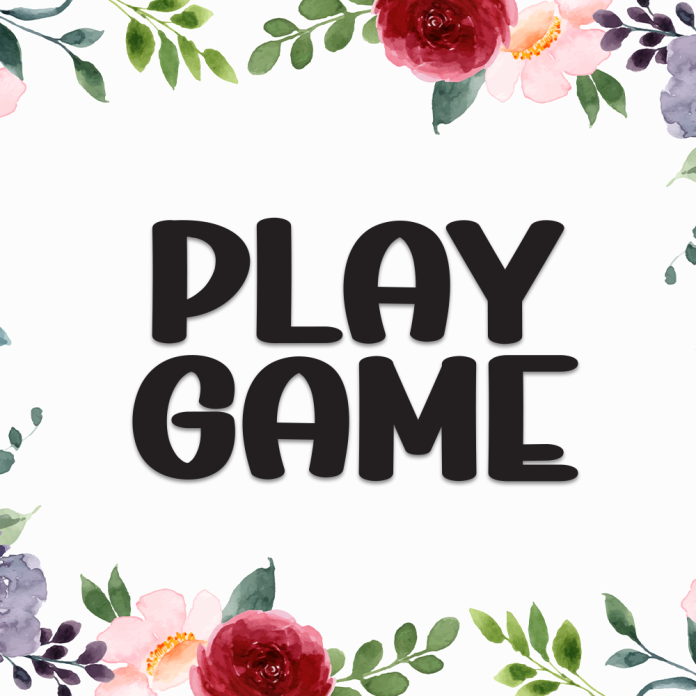
Play Game is a bold and playful display font designed to capture the excitement and action of gaming and entertainment. With its dynamic shapes and energetic feel, this font is perfect for attention-grabbing designs that need a punch of fun and adrenaline.
Ideal for game titles, kids' posters, YouTube thumbnails, tech branding, and playful merchandise, Play Game brings life and movement to every letter.
Bold and high-energy display style
Fun and modern letterforms with a digital edge
Perfect for games, kids’ content, video channels, and energetic branding
Level up your design with Play Game, the display font that’s full of action and excitement.